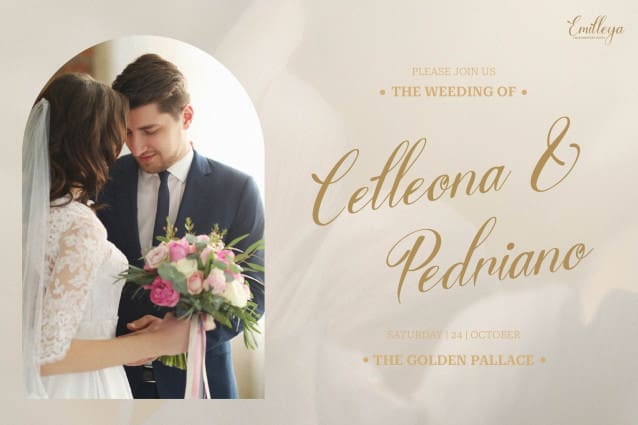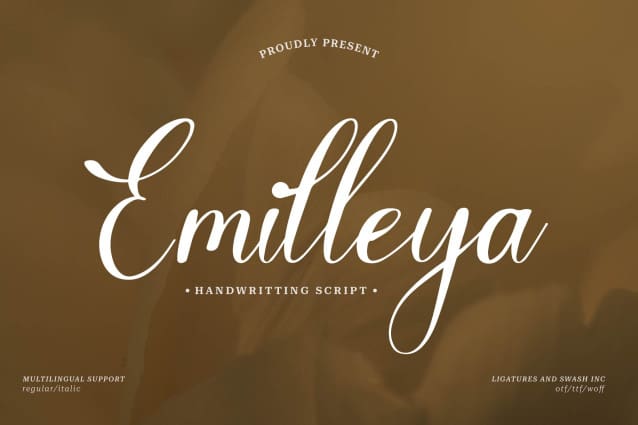
Emilleya Script Font
Emilleya Script Font, from Gracetypestudio, suitable for any projects such as: logos, branding projects, homeware designs, product packaging, mugs, quotes, posters, shopping bags, t-shirts, book covers, name card, invitation cards, greeting cards, label, photography, watermark, special events, and all your other lovely projects that need a beautiful script taste.